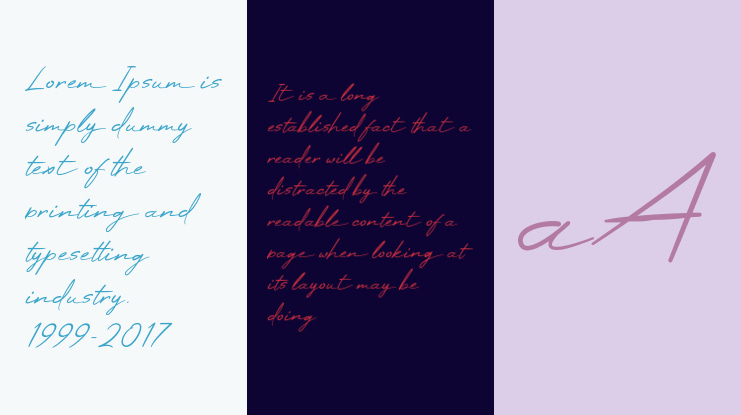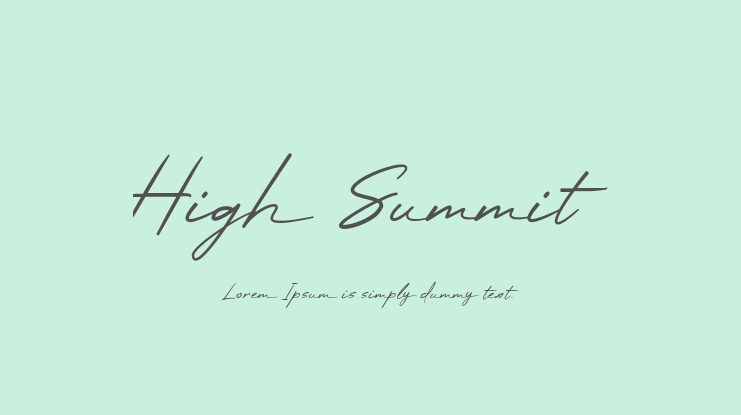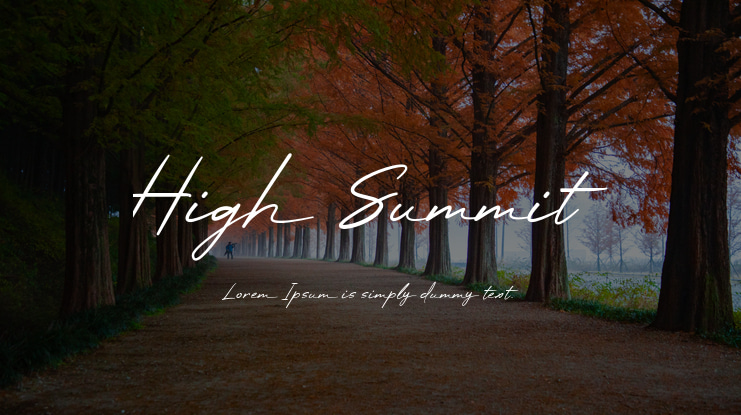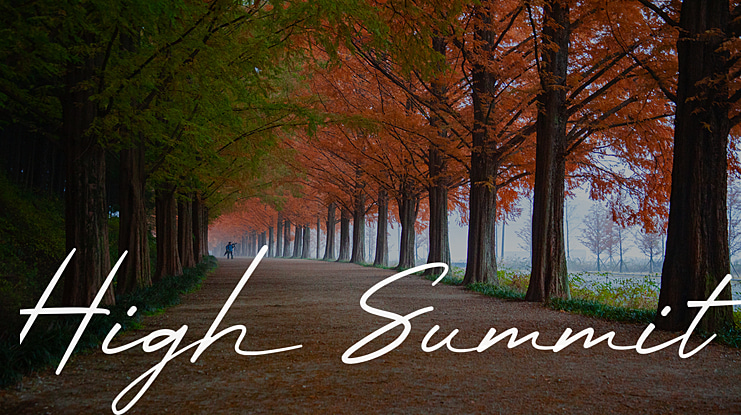
High Summit Font
High summit is elegant signature font. This font have special features. It can be used on your project, photography, name tag, quotes, and etc. This font is free for use (personal and commercial)This font is 100% free to use (personal and commercial). This font inluded two files (.ttf and .otf)Follow our instagram : www.instagram.com/alphabetadesignstudio/ (https://www.instagram.com/alphabetadesignstudio/)Paypal account for donation : www.paypal.me/hartadic (https://www.paypal.me/hartadic)Thank You!!
High Summit font preview